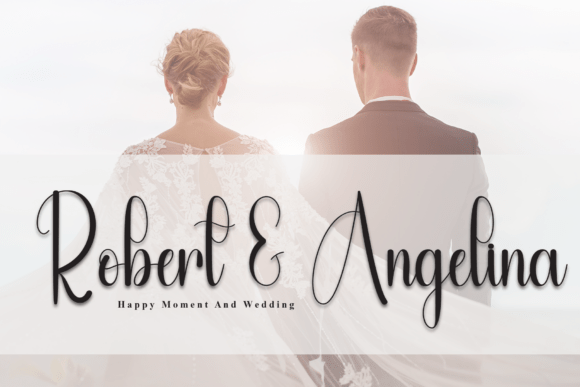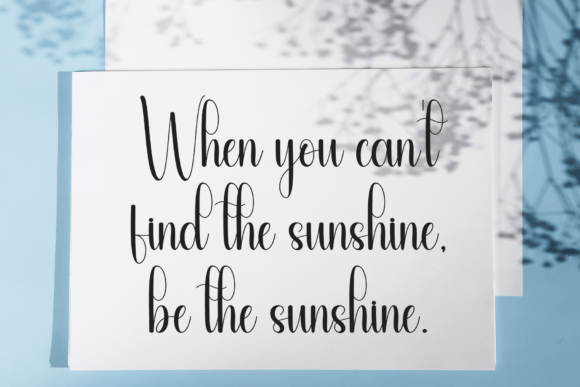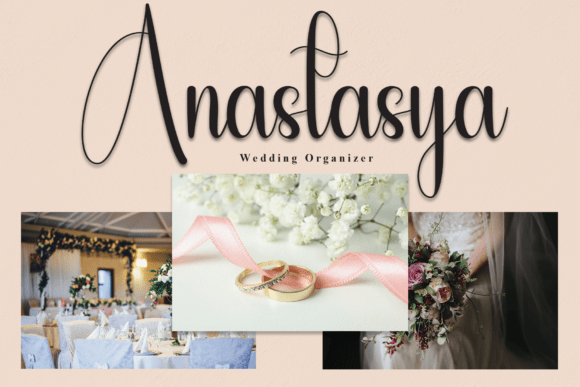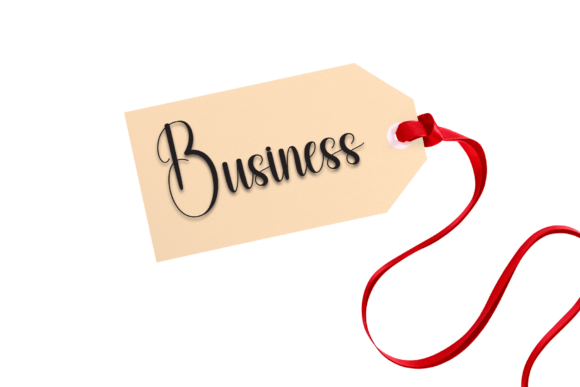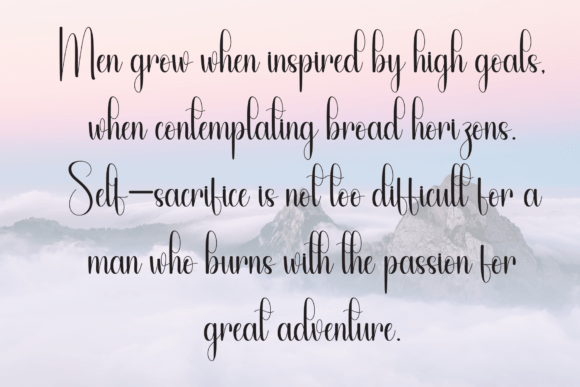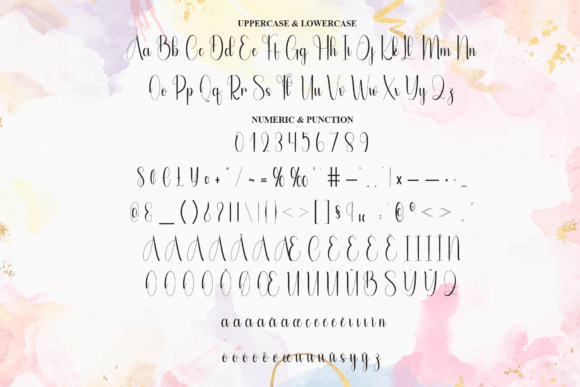
The Ultimate Guide to Barbie Font: Elevate Your Designs with Elegance and Playfulness
I’ll never forget the time I was working on a branding project for a luxury fashion client. I had spent hours perfecting the logo, but something was missing. That’s when I realized the font I was using just wasn’t cutting it. It was too generic, too boring. I needed something that would capture the essence of my client’s brand: elegant, yet playful. That’s when I stumbled upon the Barbie font. ✨
I’ve had the pleasure of working with the Barbie font on several projects, and here’s what I think:
- ✅ Elegant and Playful: The Barbie font perfectly balances sophistication and whimsy, making it perfect for a wide range of design projects.
- ✅ Flowing Curves: The font’s natural rhythm and flowing curves make it a joy to work with, and it’s perfect for creating beautiful, eye-catching designs.
- ✅ Versatile: The Barbie font is incredibly versatile, and can be used for everything from invitations and branding to social media graphics.
Of course, no font is perfect, and there are a few quirks to be aware of:
- ⚠️ Limited Use in Small Sizes: While the Barbie font is stunning in larger sizes, it can become a bit tricky to read in smaller sizes.
- 🤔 Kerning Issues: As with any font, there may be some kerning issues to work out, especially when pairing the Barbie font with other fonts.
- Experiment with the font’s OpenType features, such as glyphs and stylistic alternates, to add some extra flair to your design.
The Backstory Behind the Barbie Font
The Barbie font was designed by a team of typographers who wanted to create a font that captured the essence of playfulness and elegance. Inspired by the iconic Barbie doll, the font’s designers aimed to create a font that was both sophisticated and whimsical.
| Font Name | Barbie Font |
| What is the Barbie font best used for? | The Barbie font is perfect for designs that require a touch of elegance and playfulness, such as invitations, branding, and social media graphics. |
| Is the Barbie font suitable for body text? | While the Barbie font is stunning in headings and titles, it may not be the best choice for body text due to its flowing curves and script nature. |
| Is the Barbie font available in different weights and styles? | Yes, the Barbie font comes in a range of weights and styles, including regular, bold, and italic. |